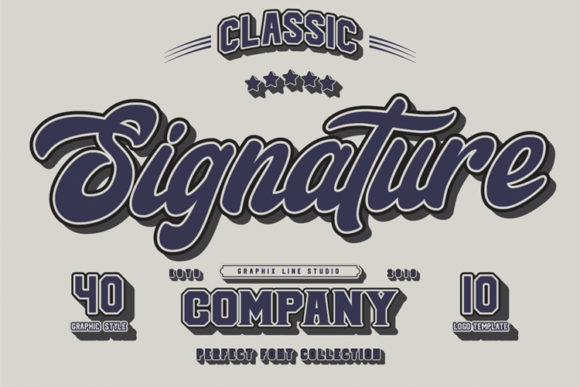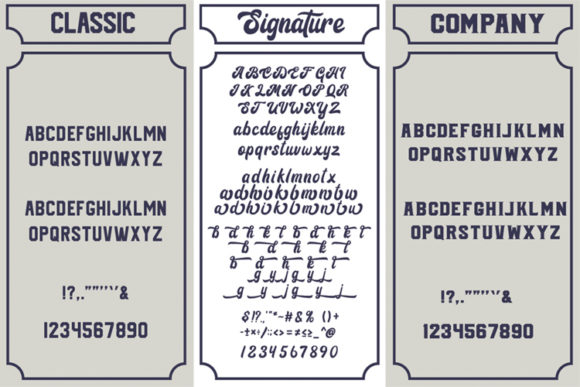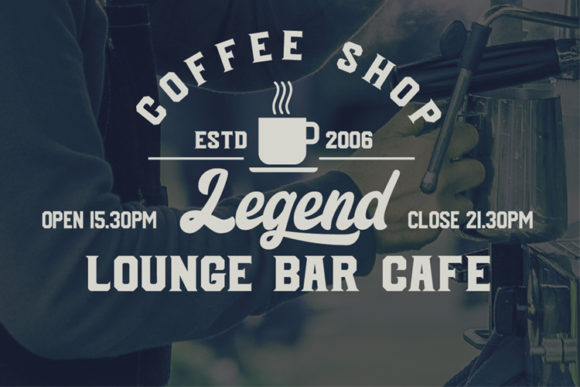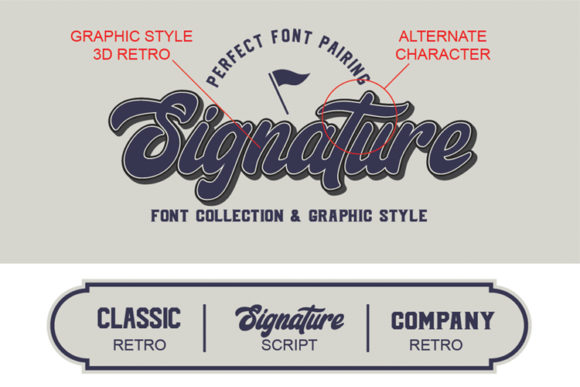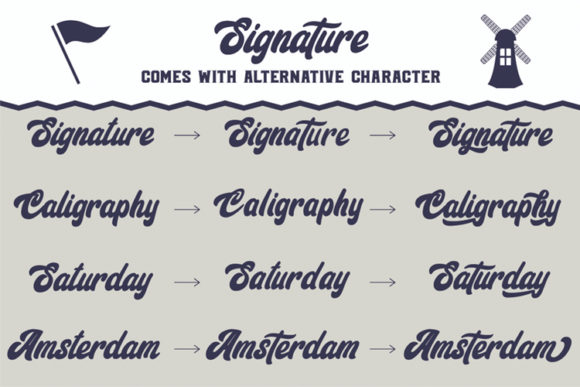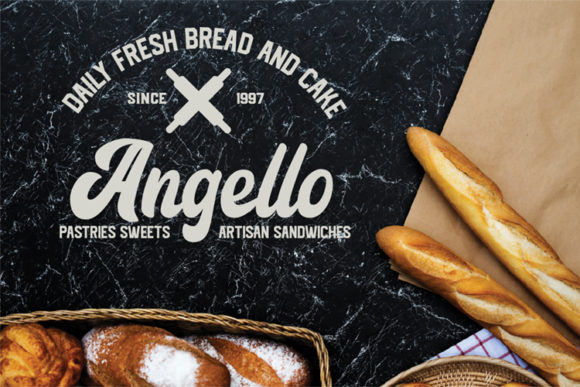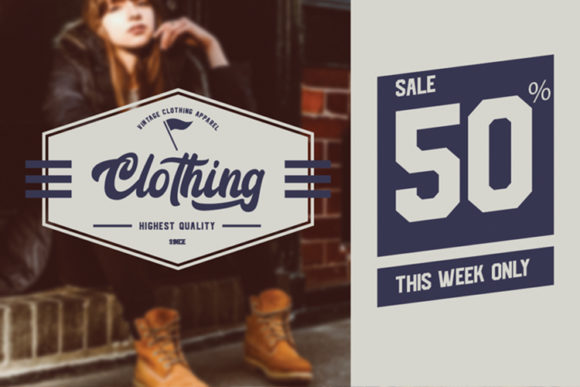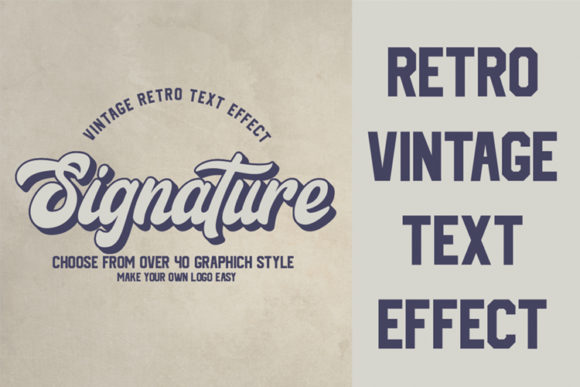
Signature Trio Font
About Signature Trio Font
The signature is a striking font trio. It has a bold and modern style with a vintage feel.
It’s allowing you to create beautiful hand-made typography in an instant. Perfect for branding projects, logos, brochures, business cards, wedding designs, social media posts, advertisements, product packaging, product designs, labels, photography, watermarks, invitations, and every other design which needs a handwritten feel.